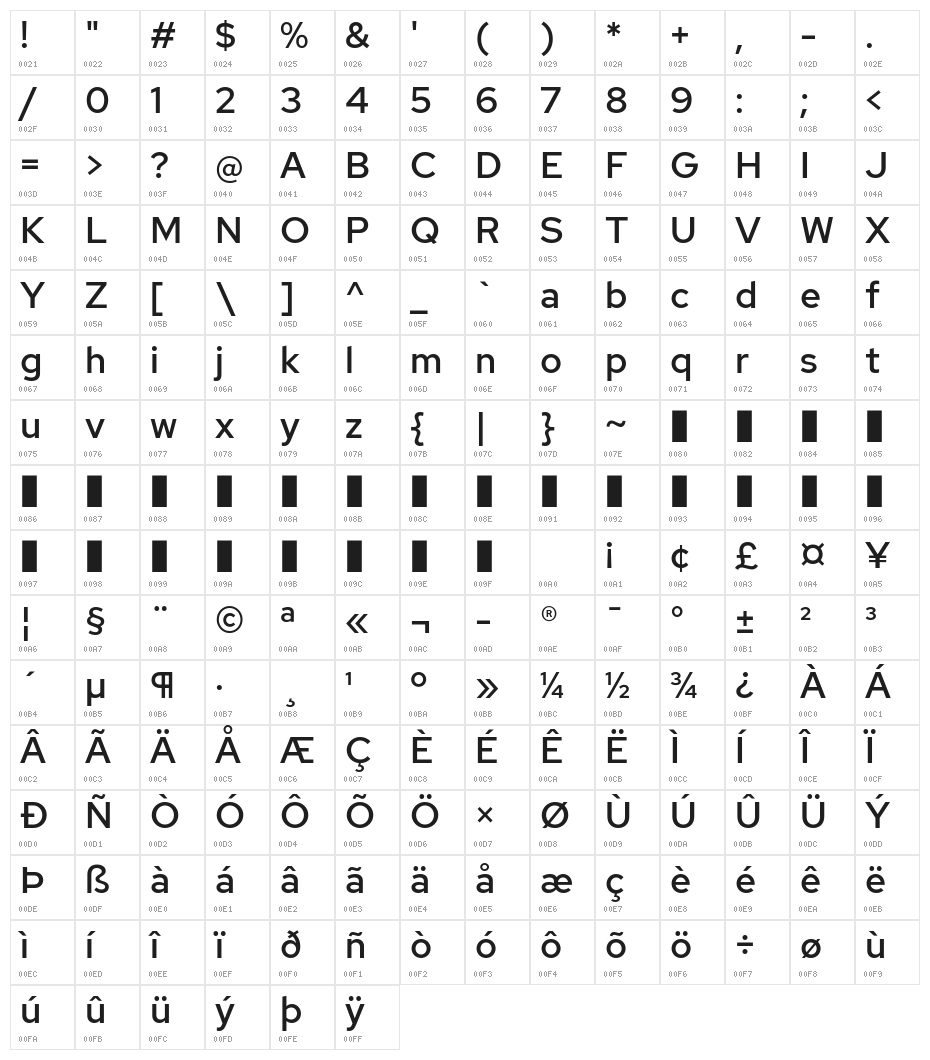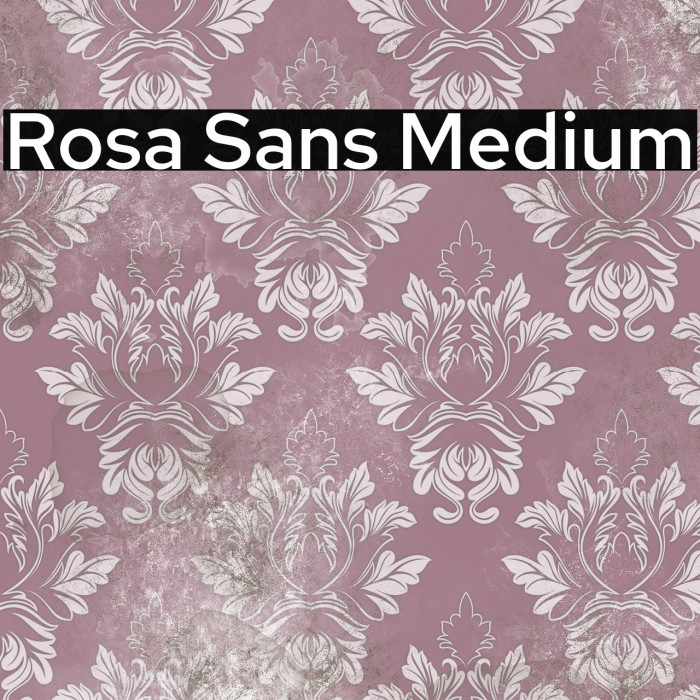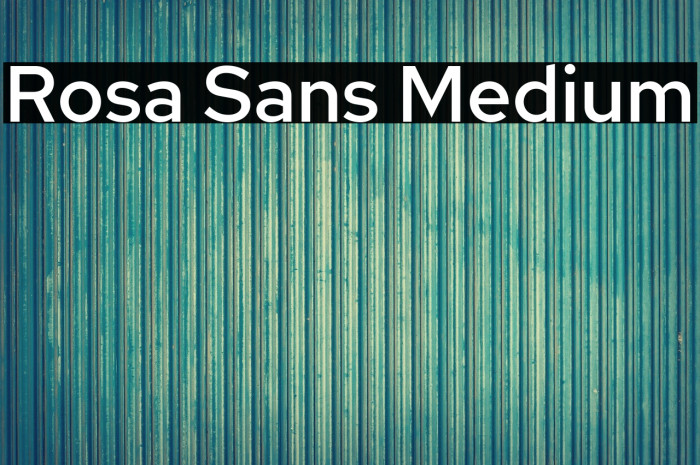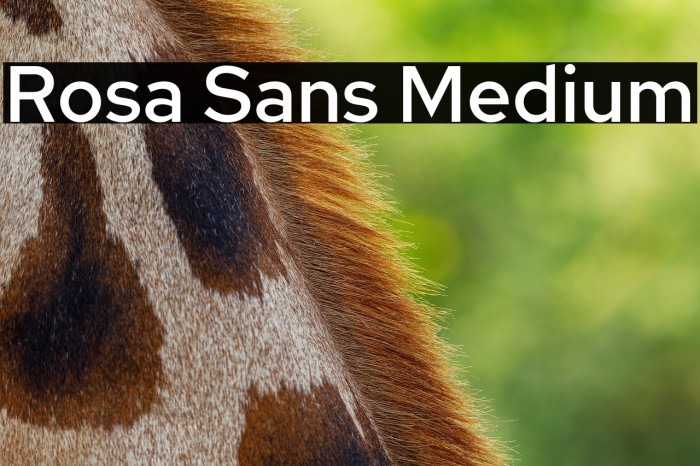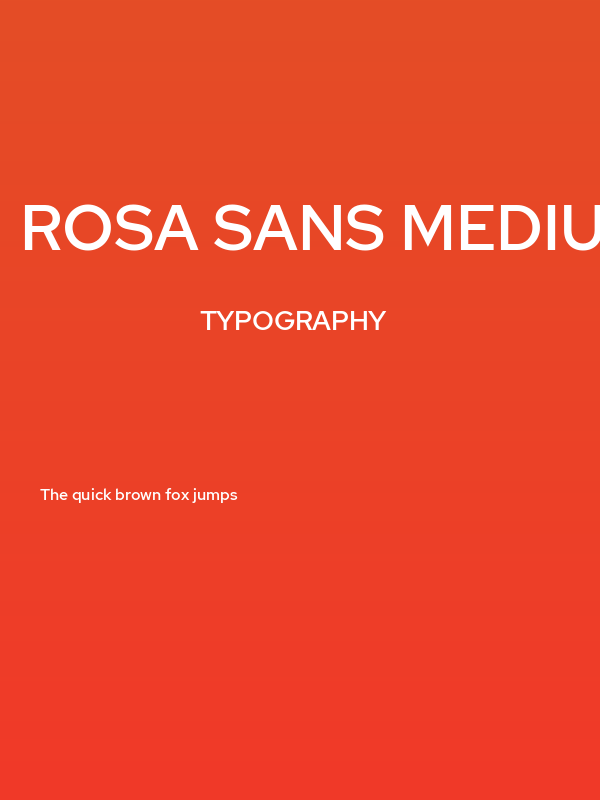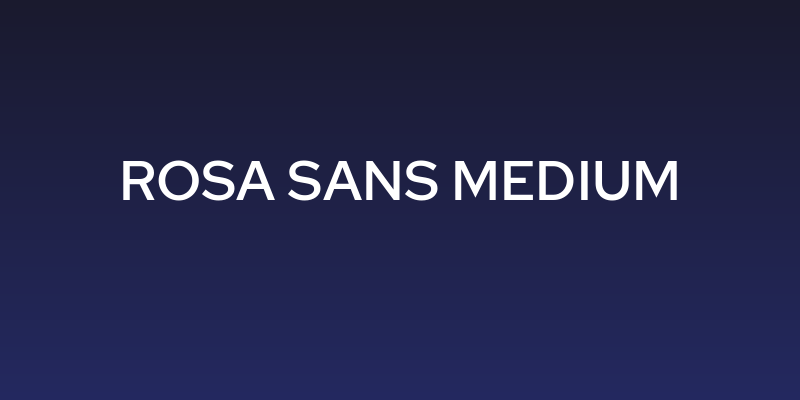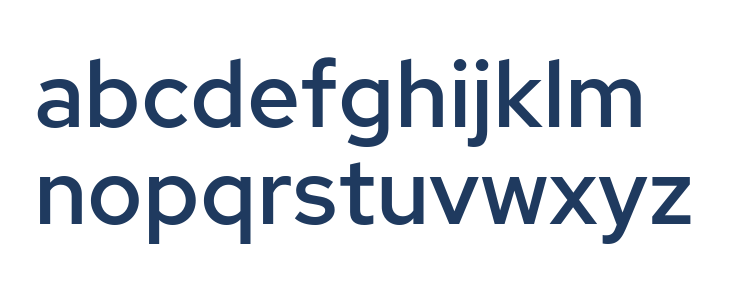
Rosa Sans Medium Font
Rosa Sans Medium Description
This typeface features a clean and modern design with a sans-serif style, characterized by its simplicity and readability. The letters are uniform in width, providing a balanced and harmonious appearance. The strokes are consistent, with medium contrast, giving it a professional and contemporary look. The characters are well-spaced, ensuring clarity and legibility across various sizes. This font is versatile, making it suitable for a wide range of applications from digital to print media.